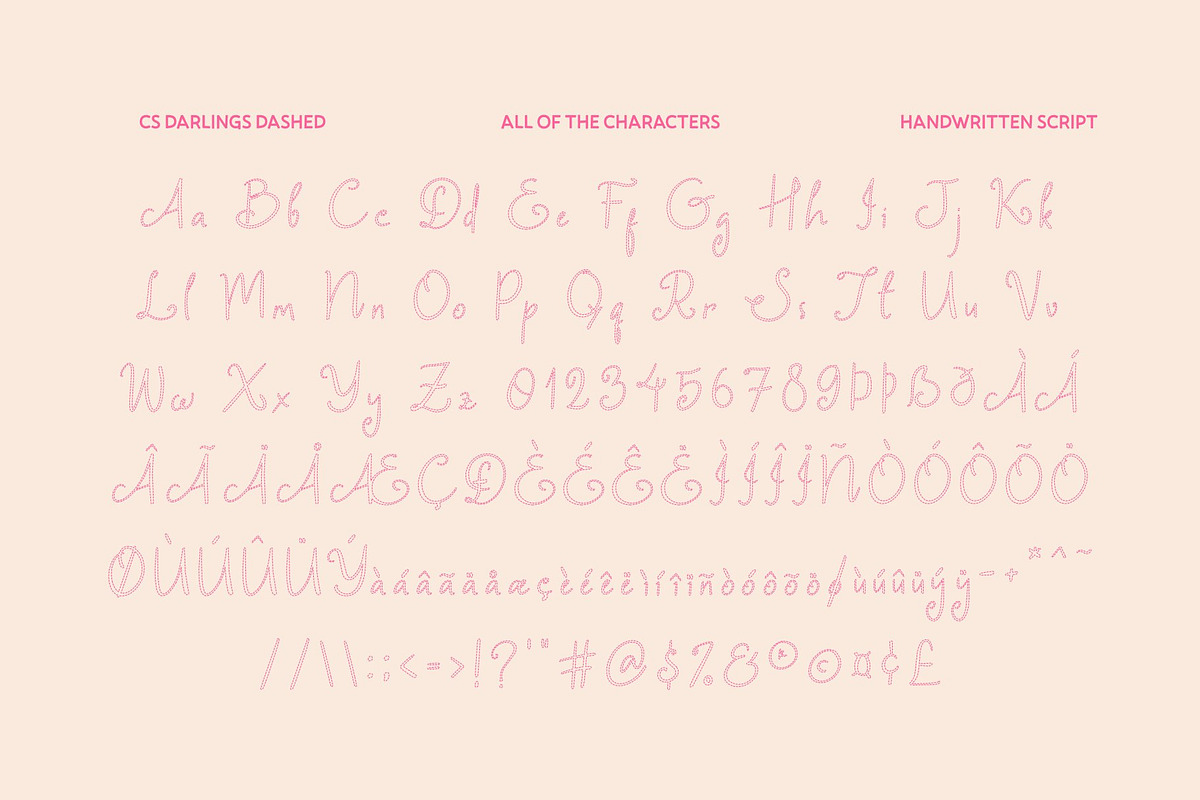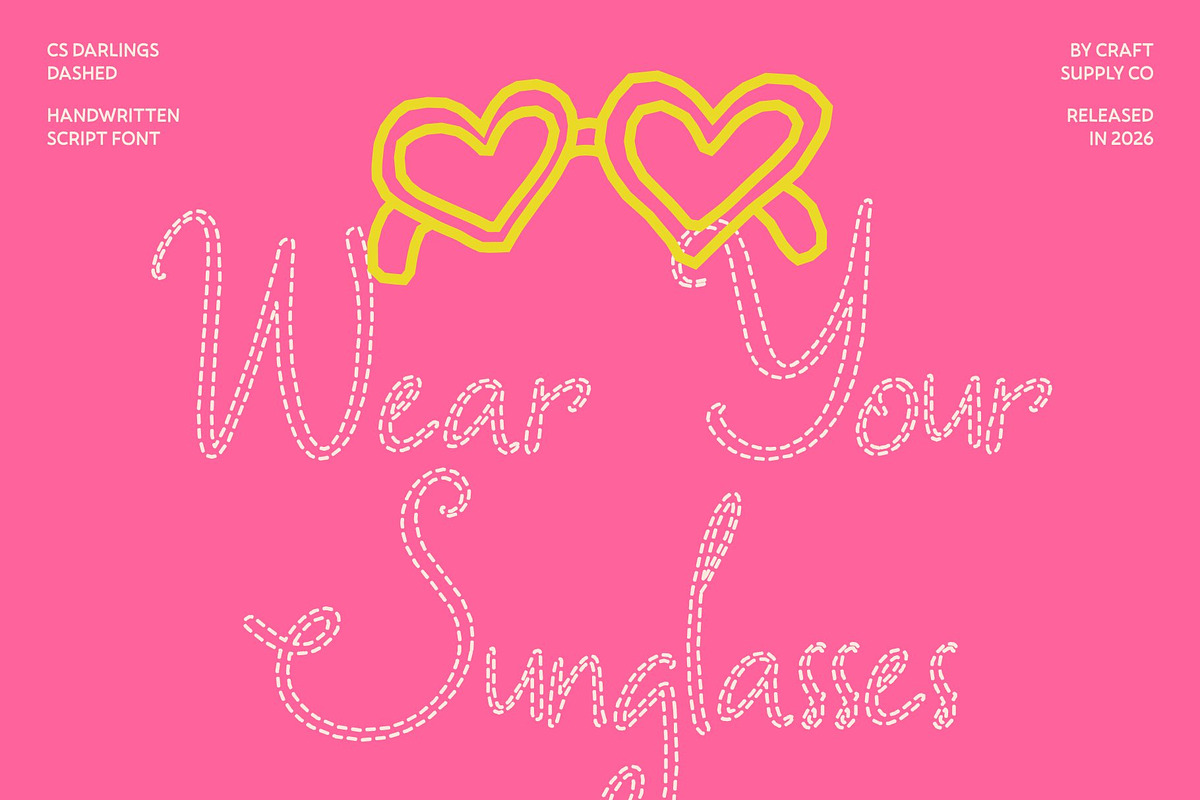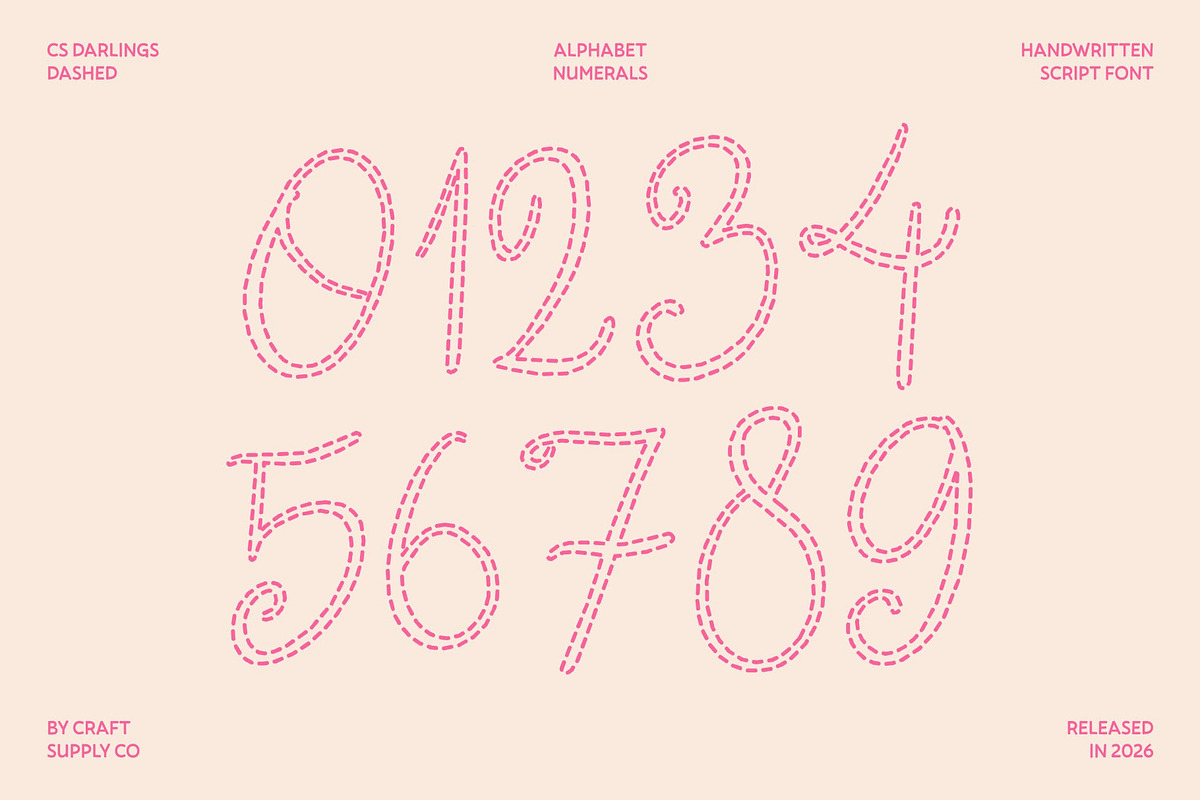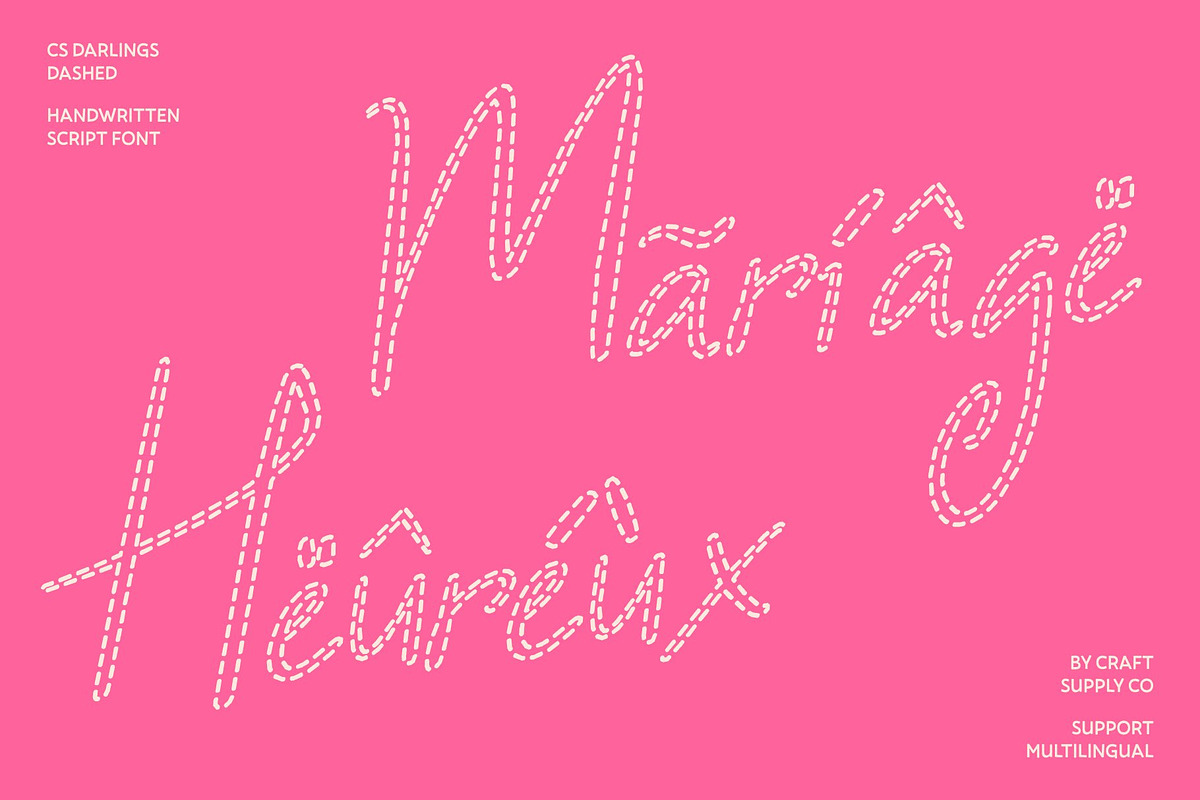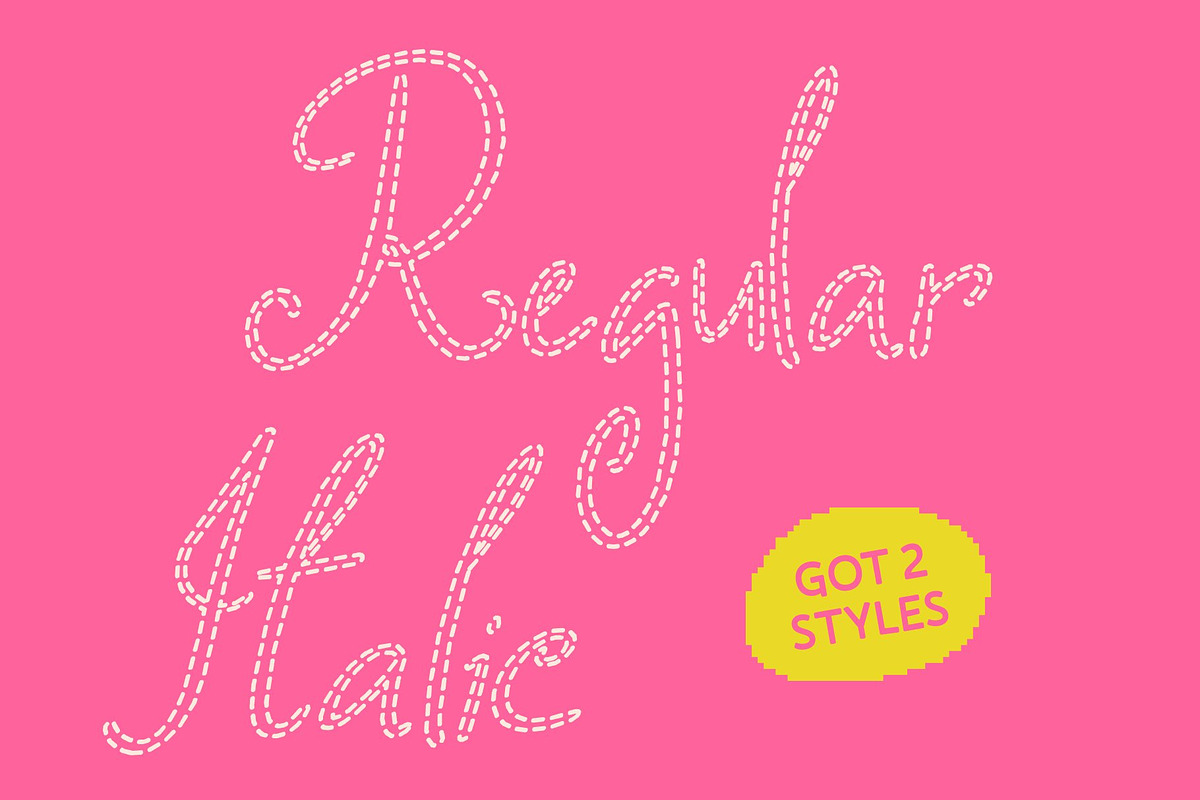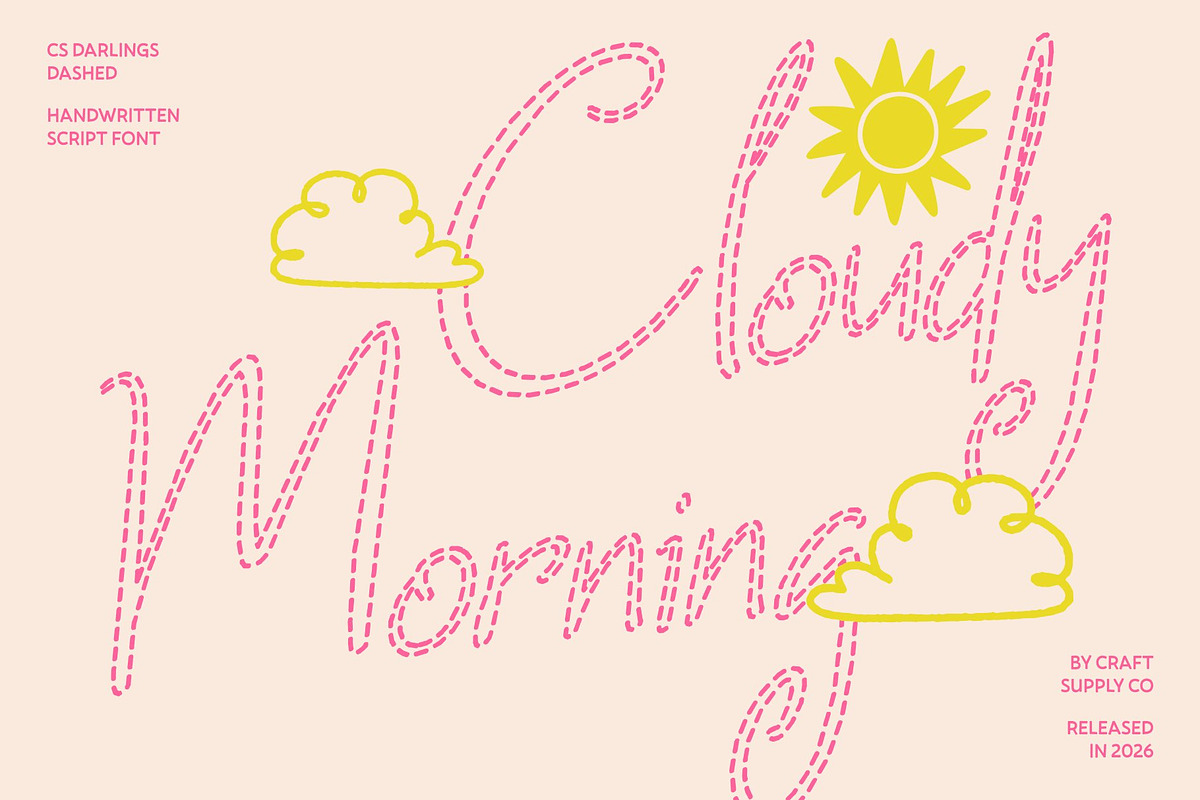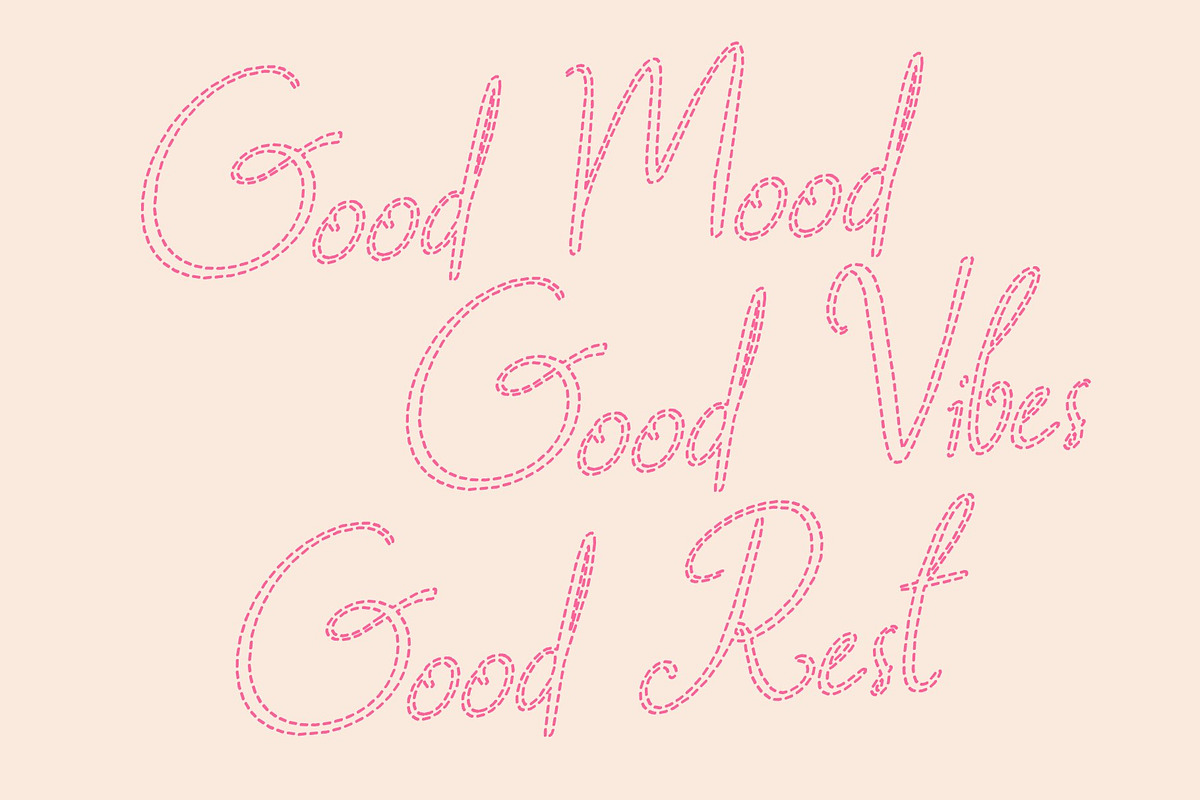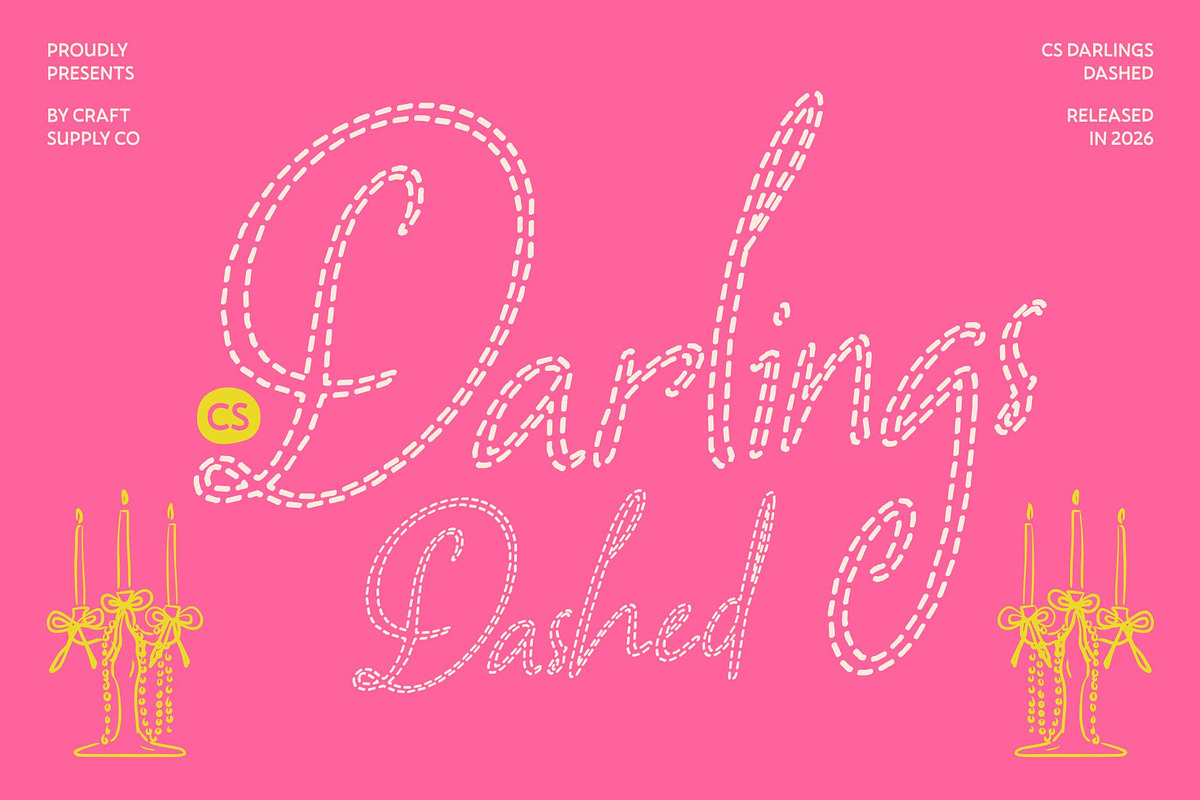
CS Darlings Dashed
CS Darlings Dashed – Handwritten Script Font with Romantic Charm: Whimsical Beauty in Every Stroke
Graceful Flow with Whimsical Style This is a handwritten script font that captures beauty through movement and form. Blending elegant script typography with a playful whimsical spirit, it brings softness and charm to every word. Its flowing structure feels light, expressive, and full of personality.
Dashed Strokes for Romantic Expression What makes truly distinctive is its dashed letter construction. Instead of solid, continuous lines, each stroke is formed by delicate broken segments that create an airy, decorative texture. This dashed style enhances the handwritten illusion, as if the pen gently danced across the page. The segmented strokes add a creative and relaxed feel while maintaining the smooth rhythm and legibility of a refined script.
A Touch of Magic and Elegant Warmth The combination of flowing connections and softly broken lines creates a magical yet graceful presence. It conveys intimacy, romance, and imagination without feeling overly ornate. The dashed detailing introduces subtle visual interest, giving the font a dreamy, storybook-like atmosphere that feels both sophisticated and heartfelt.
Perfect for Wedding and Celebration Designs This is ideal for wedding stationery, party invitations, elegant posters, romantic branding, packaging, and celebration-themed designs. Its whimsical dashed strokes transform typography into an enchanting visual centerpiece perfect for conveying love, joy, creativity, and timeless beauty.